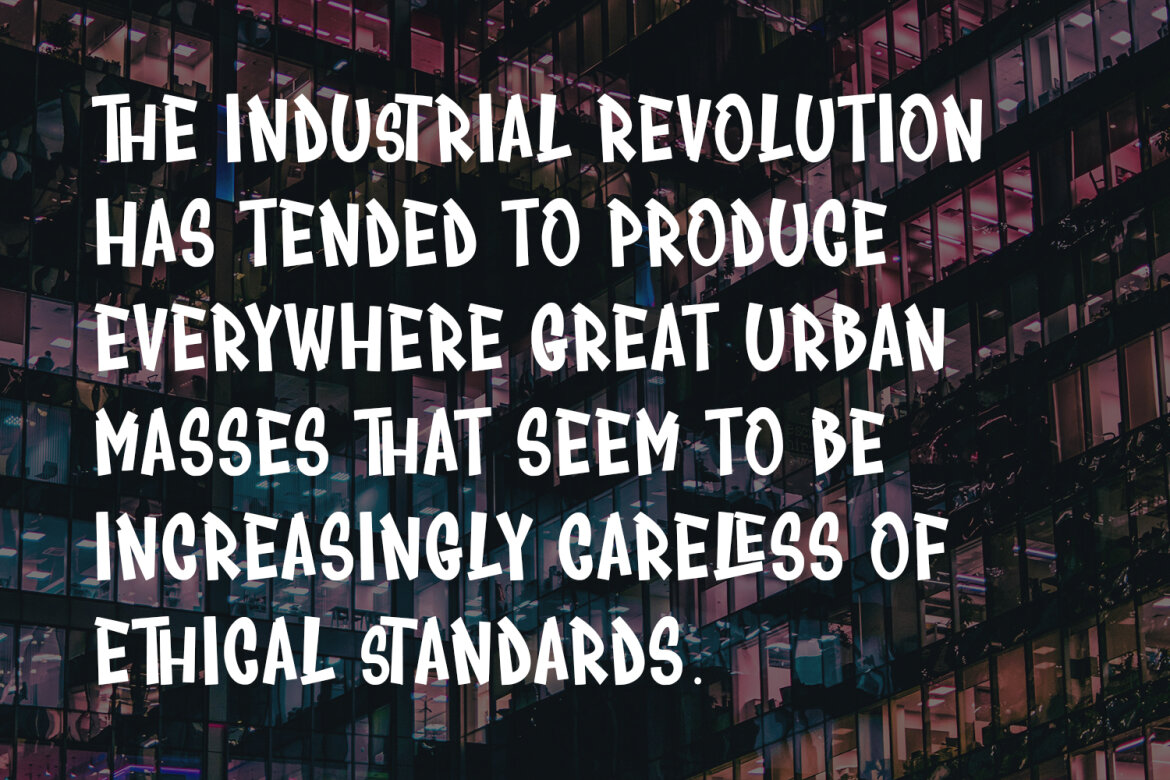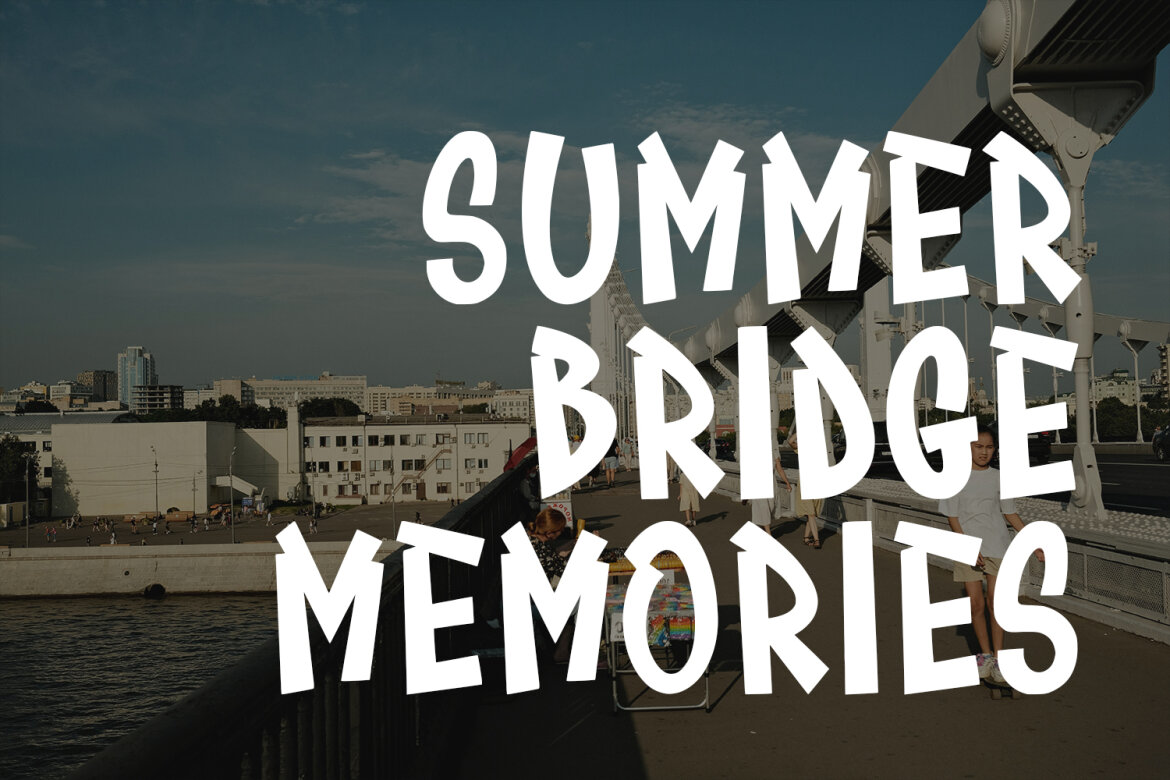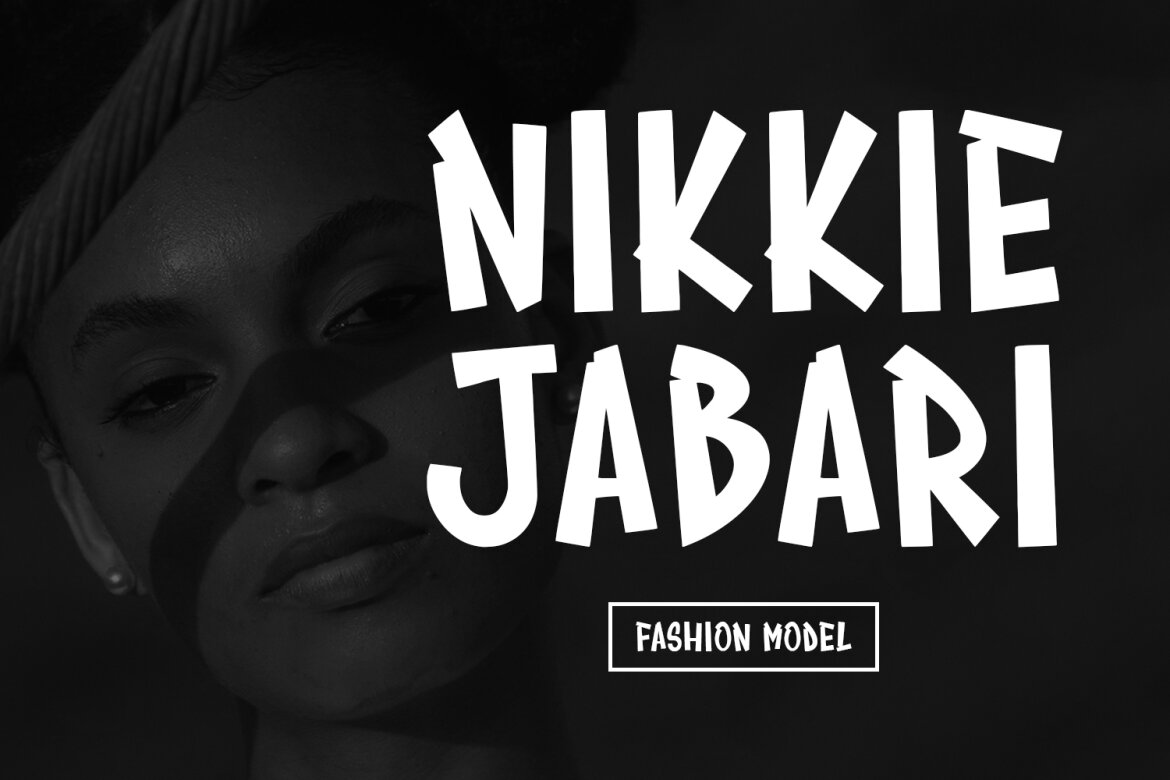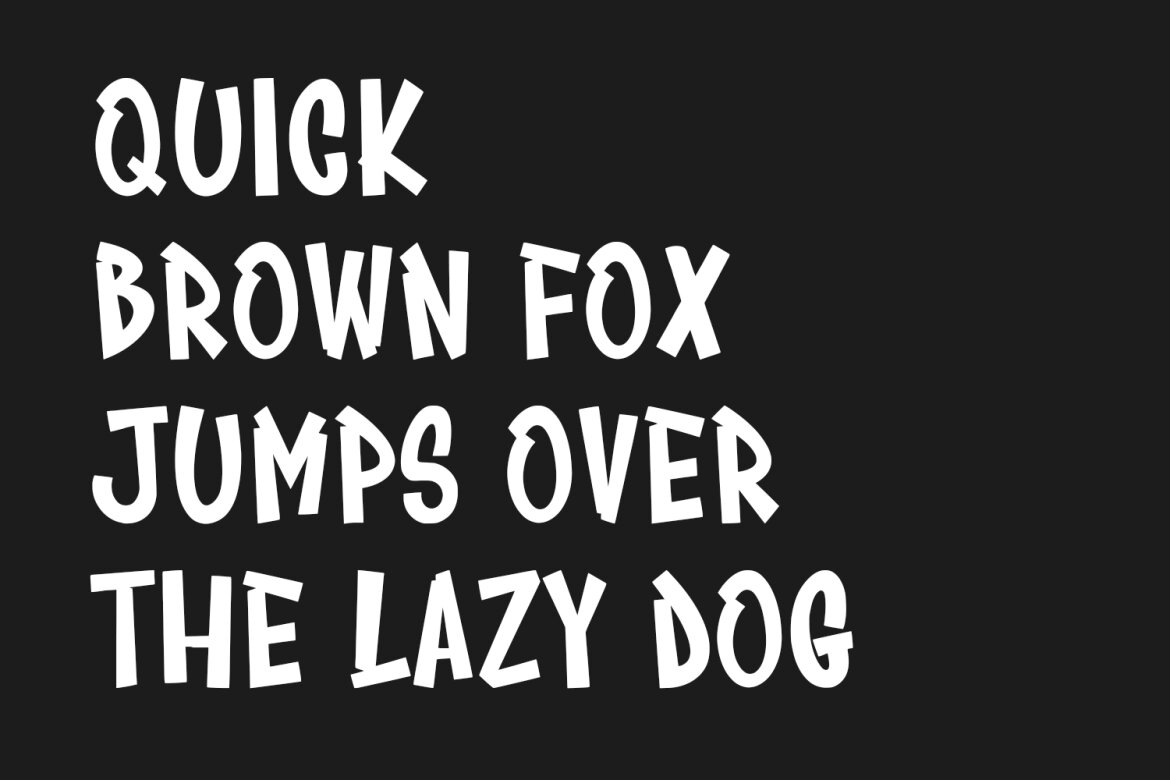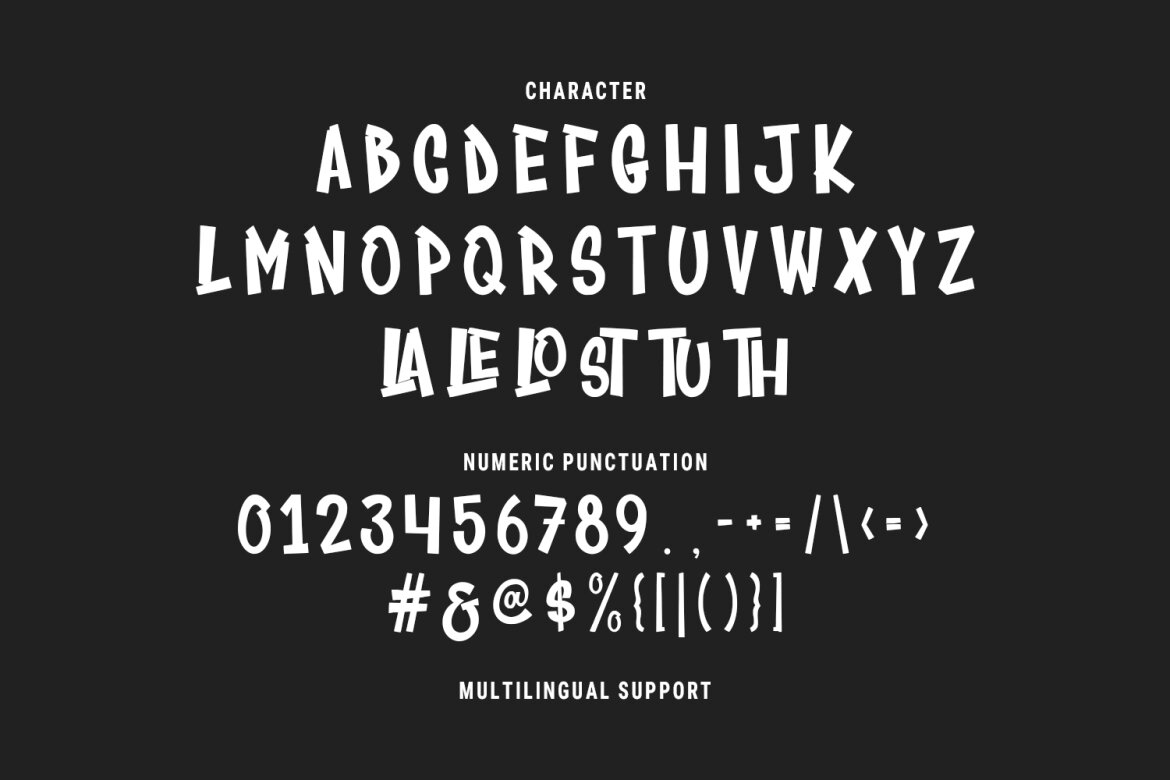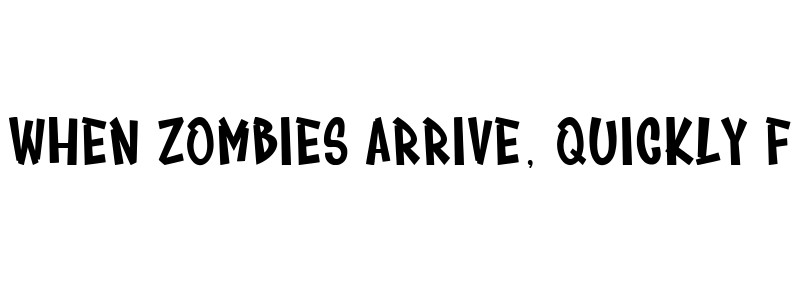
Plokasid Playful FREE Font
Plokasid
Plokasid is a playful style display font. Fun character with a bit of ligatures. To give you an extra creative work. Plokasid playful font support multilingual more than 100+ language. This font is good for logo design, Social media, Movie Titles, Books Titles, a short text even a long text letter and good for your secondary text font with sans or serif. Make a stunning work with Plokasid font.